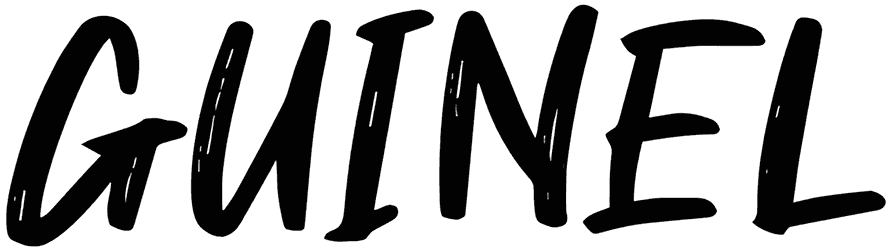
Guinel Font
A journey of thousands of kilometers would begin with one step and the first step of becoming a professional graphic designer would be choosing a suitable script font, such as Guinel that leads to a sense of momentum, majestic, drama, or vivacity. Since this brush font comes with crooked characters, it would insanely look perfect on posters, logos, business cards, stickers, or web pages.